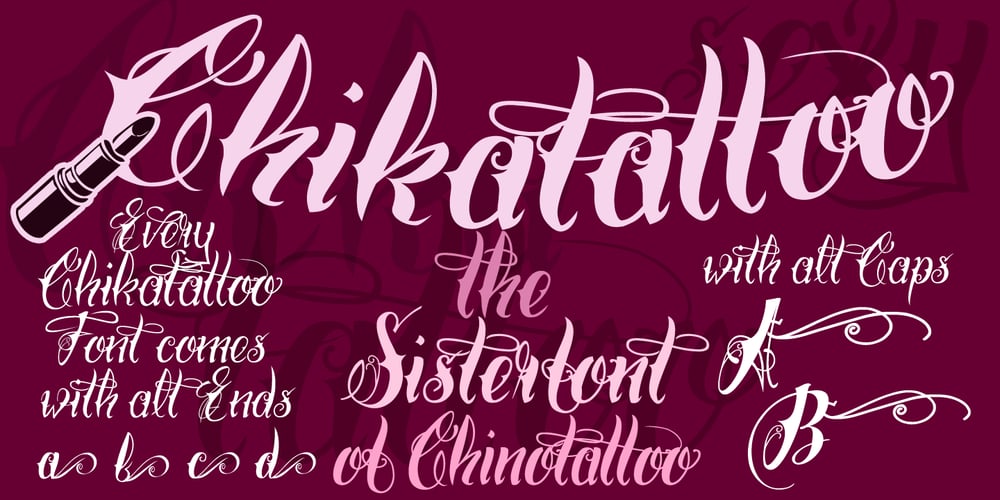
Chika Tattoo Font Family was designed by published by Otto Maurer. Chika Tattoo contains 12 styles and family package options. This Font is the Sisterfont of Chinotattoo. The different is the thorn in every letter! Chika Tattoo is best for all Tattooartists and Tattoofans.You can use it to make Tattooflashs for your Tattoostudio. Chika Tattoo is a typical Tattoostyle Font. The Chinostyle comes from the Gangs of the USA (with latin roots) They often have Chist-Symbols.